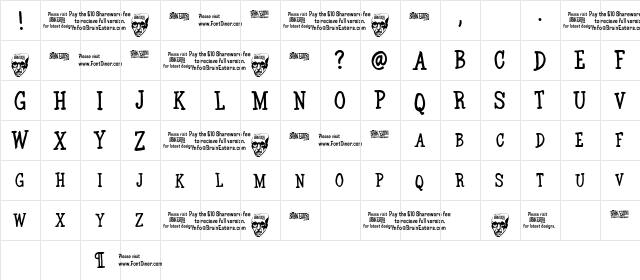
BE Marker Serif_SW Font Preview
BE Marker Serif_SW
Design Context for BE Marker Typeface
BE Marker brings classic typographic sensibility to the table — its serifs and measured letterforms reflect centuries of print heritage.
Pro Tip: Set BE Marker with slightly loose tracking in headlines to let each letterform's detail read clearly at display sizes.